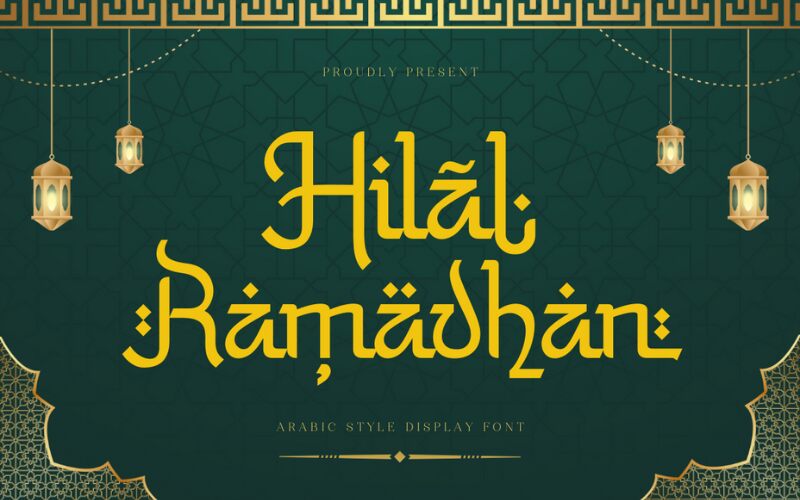
Hilal Ramadhan font by Sronstudio is an ornamental, elegant, culturally rich, sophisticated, and decorative display typeface for you to enjoy. This free font is made up of an exotic set of delicate lowercase letters with a strikingly artistic flair inspired by historical and traditional influences.